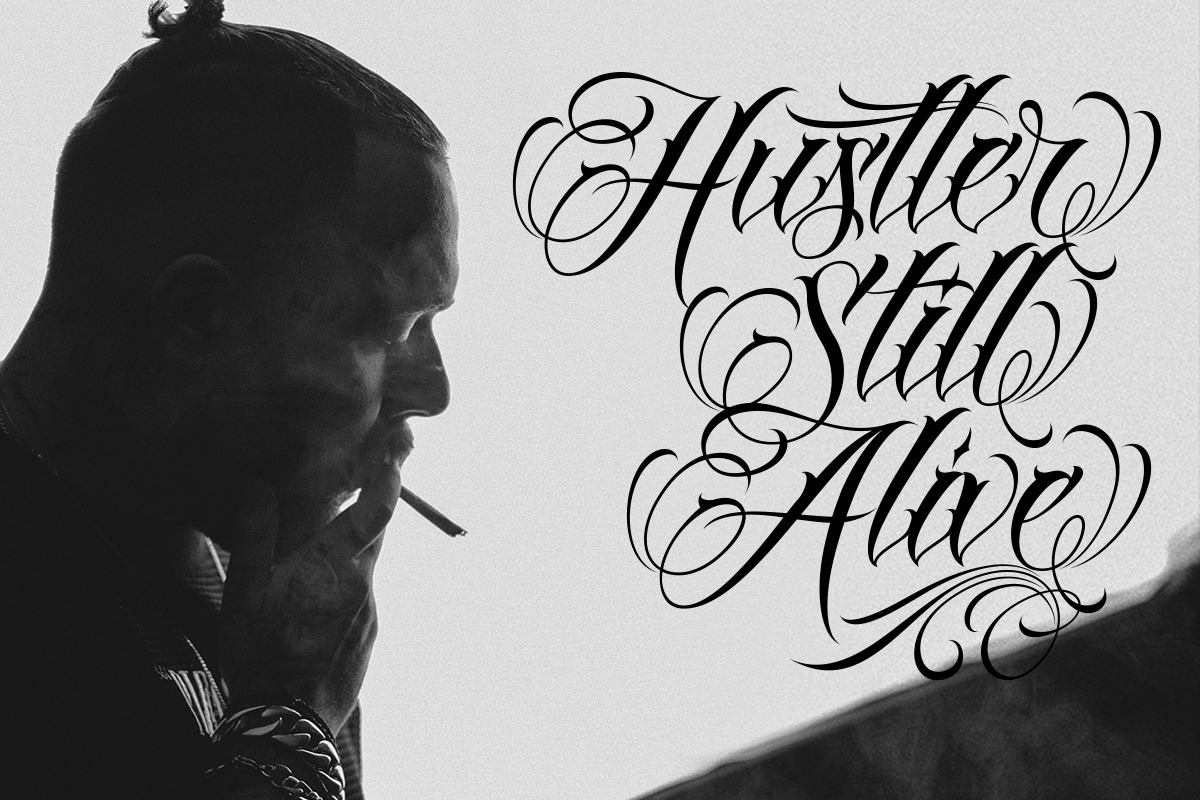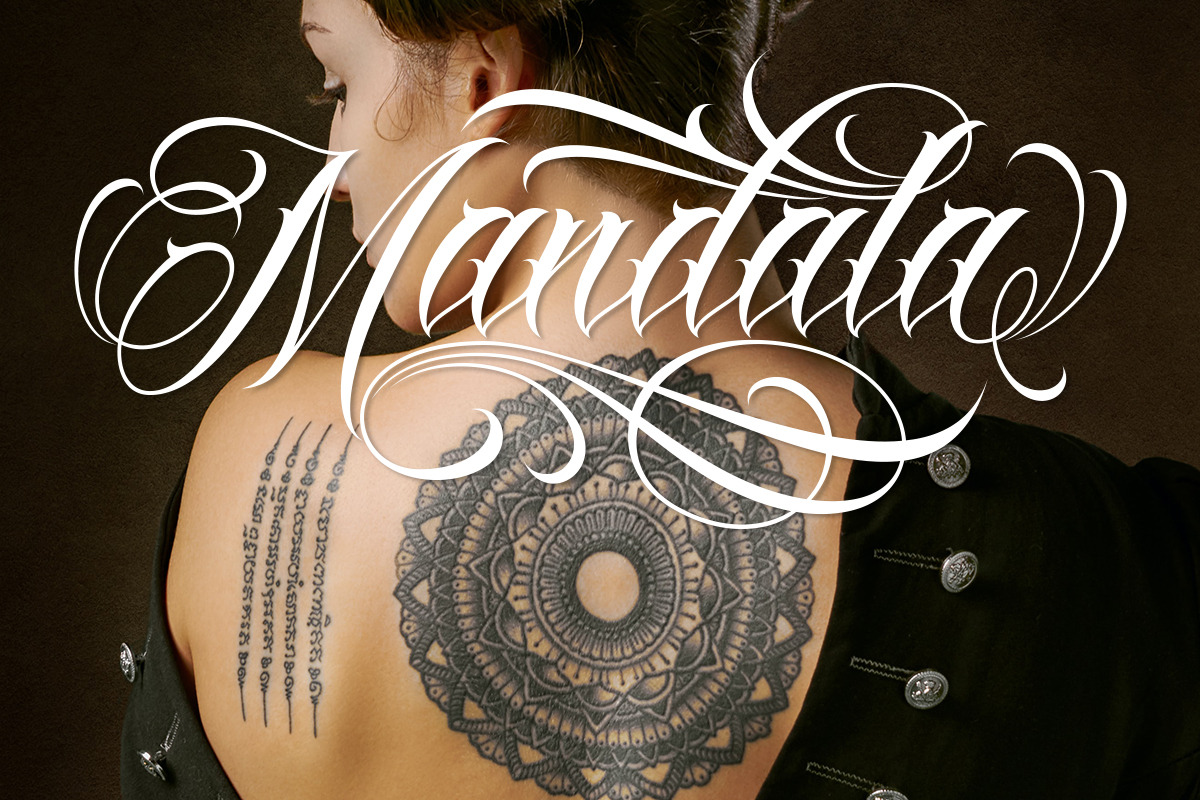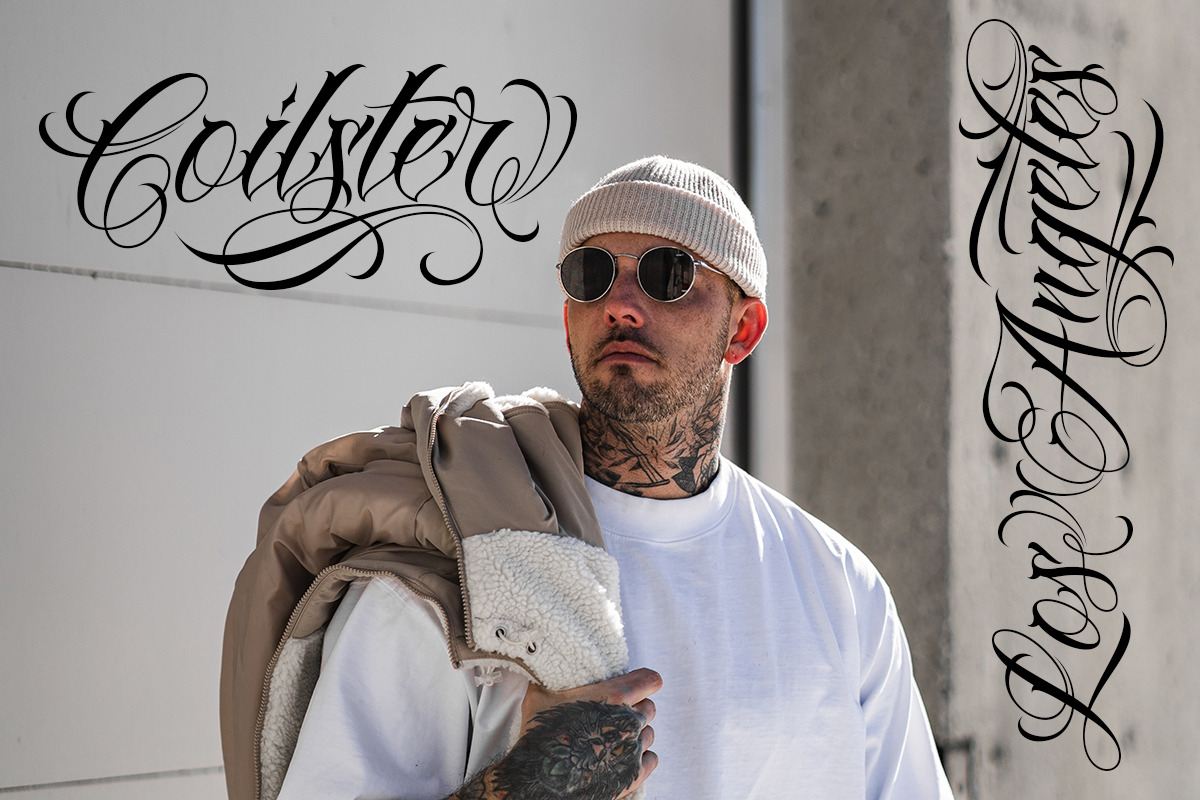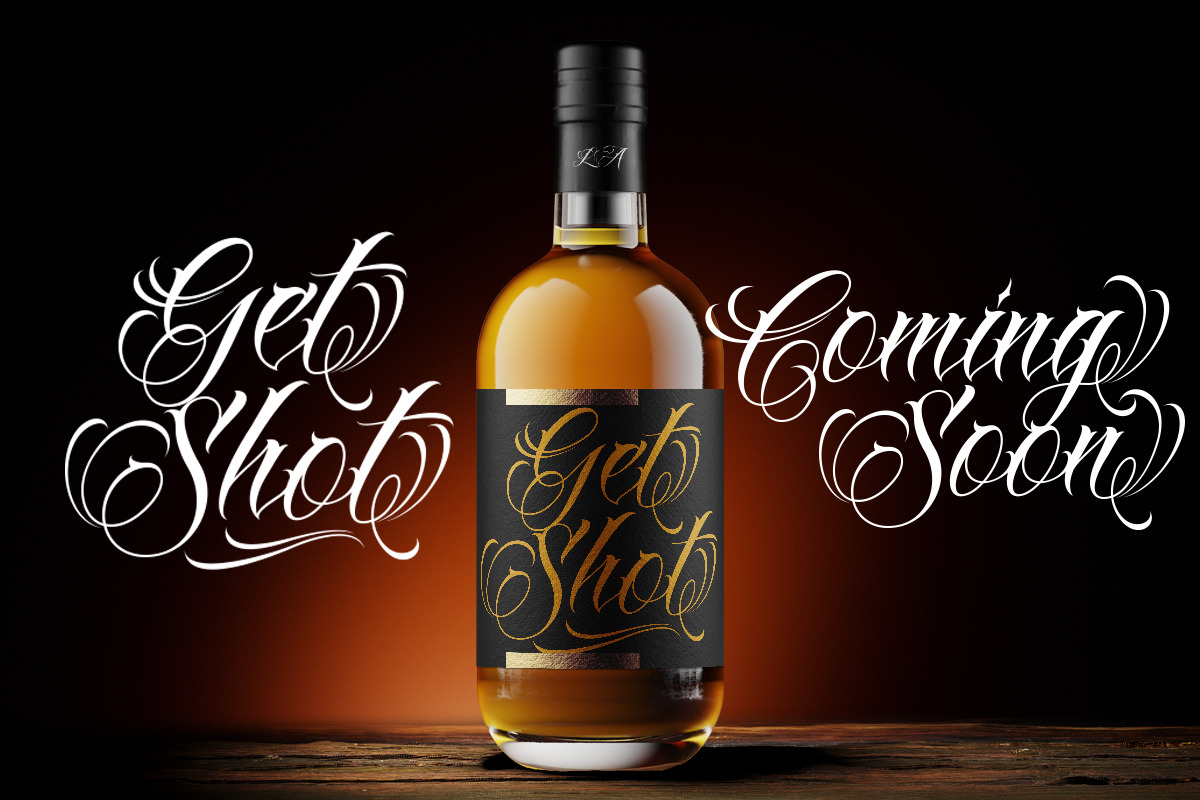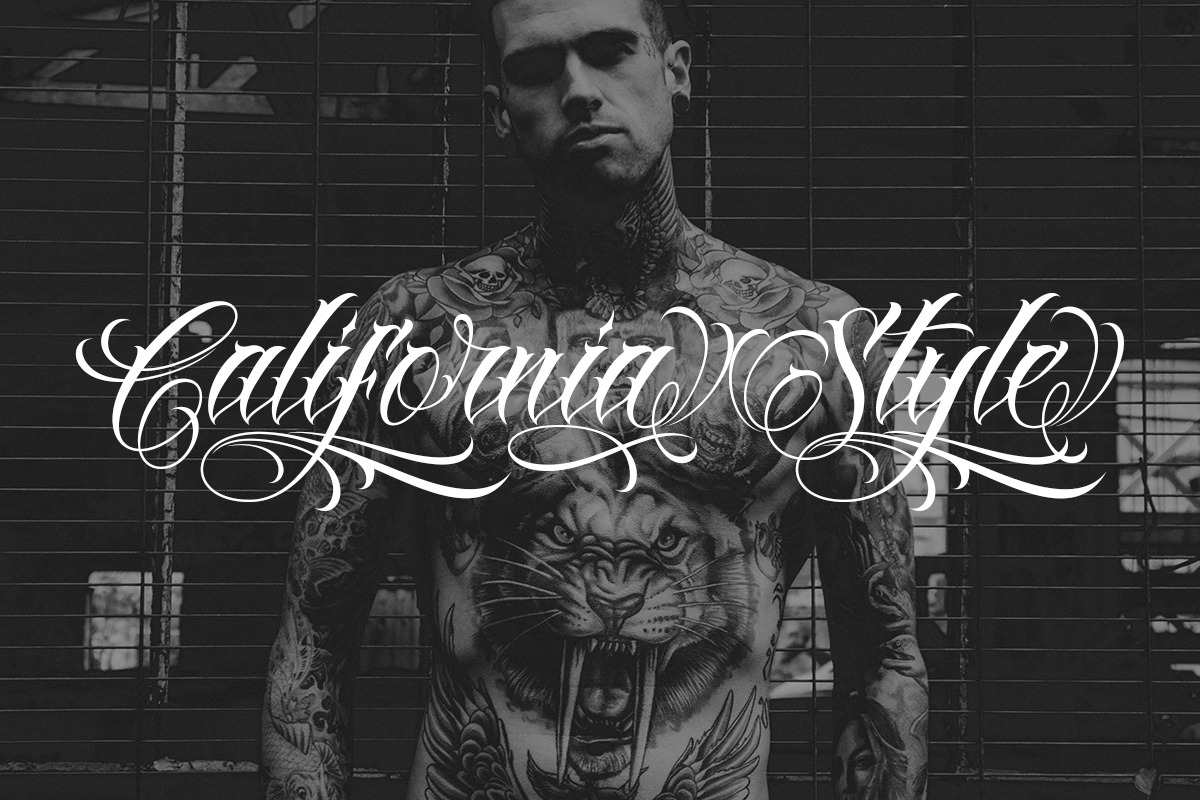
Hustler | Tattoo Style
Introducing our new product the name Hustler | Tattoo Style. Hustler font includes uppercase and lowercase letters, numerals, a large range of punctuation, and ligatures. All lowercase letters include ending swashes and alternative font.
FEATURES : Uppercase Lowercase Number Punctuation Multilingual Swash Opentype